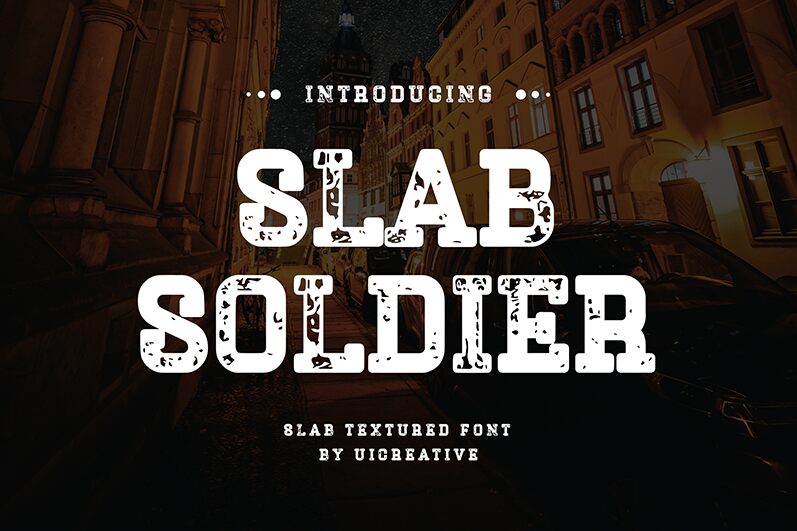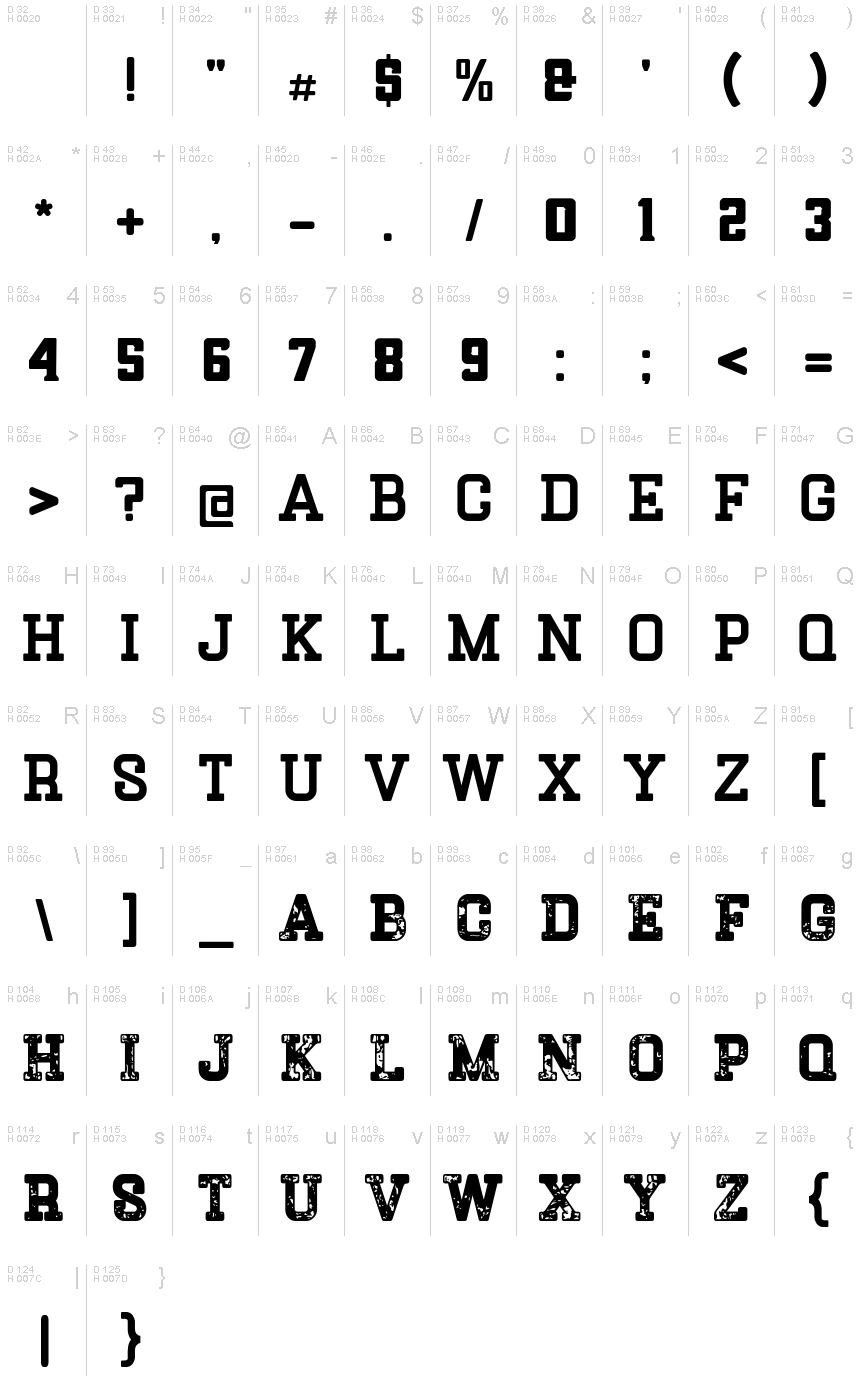
SlabSoldier
Slab Soldier, crafted by UI Creative, is a striking serif font that exudes a rugged, weathered charm. Its eroded texture and angular serifs evoke a sense of grit and resilience, drawing the eye with their unique, captivating aesthetic. The font's powerful visual presence can lend an air of authority and strength to a wide range of design projects, from editorial layouts to branding and packaging.
This font's versatility makes it a compelling choice for designers seeking to create bold, impactful typographic compositions. Its sturdy, unyielding appearance lends itself well to applications that demand a sense of durability and steadfastness, such as in product packaging, corporate identities, or even editorial designs that require a touch of industrial flair.